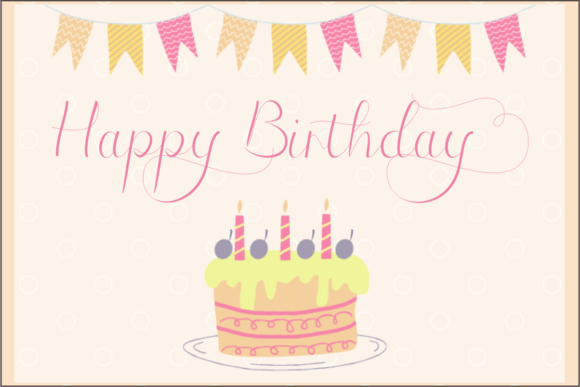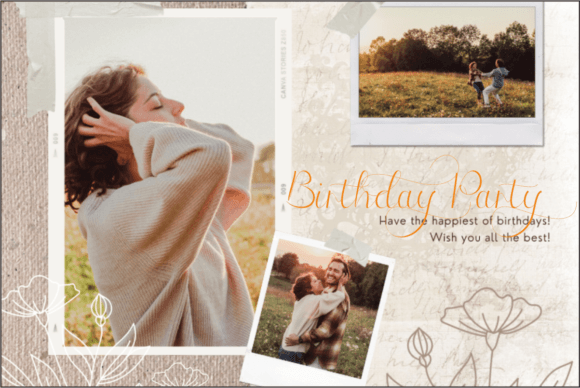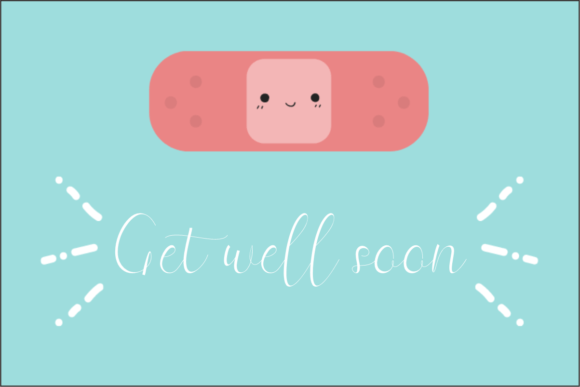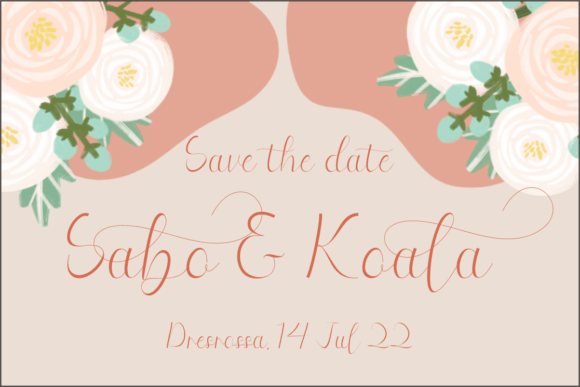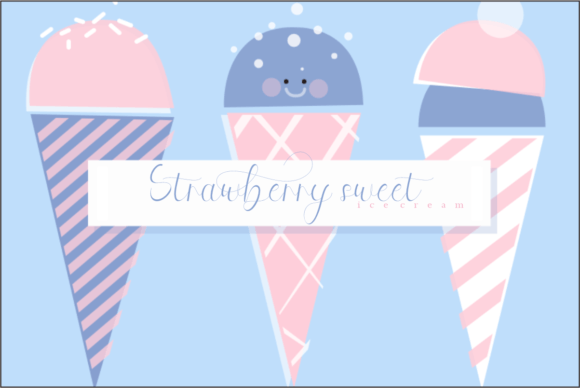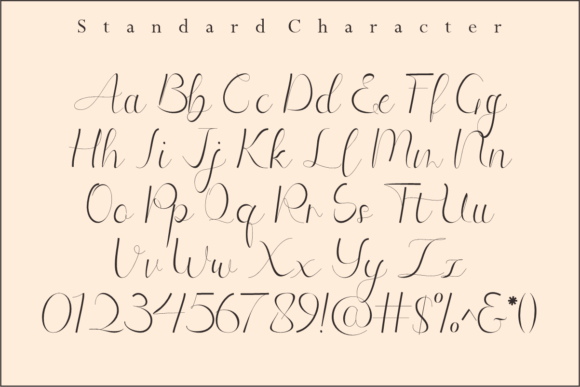
Discover the Elegance of Going Merry Font: Elevate Your Designs with a Timeless Style
Are you on the lookout for a font that adds a touch of elegance and sophistication to your projects? Look no further than the Going Merry Font. This beautiful, flowing handwritten font is designed to bring a sense of refinement and style to your designs, making it perfect for crafters and designers alike. With its unique and timeless style, Going Merry Font is sure to capture your heart and inspire your creativity.
The Characteristics of Going Merry Font
Going Merry Font is described as a flowing handwritten font with an elegant touch. Its fluid lines and curves give it a dynamic and organic feel, making it perfect for projects that require a personal and human touch. The font’s elegant style ensures that it can be used for a wide range of applications, from formal to informal, without ever looking out of place.
What Makes Going Merry Font Stand Out?
So, what sets Going Merry Font apart from other fonts? Here are a few key features that make it a standout choice for designers and crafters:
- Unique Style: Going Merry Font boasts a totally different and timeless style that will set your designs apart from the rest. Its distinctive look ensures that your projects will have a unique and recognizable aesthetic.
- Elegant Touch: The font’s elegant touch makes it perfect for projects that require a level of sophistication and refinement. Whether you’re working on a luxury brand campaign or a high-end craft project, Going Merry Font is sure to deliver.
- Versatility: Despite its elegant style, Going Merry Font is incredibly versatile and can be used for a wide range of applications, from digital designs to print materials.
How to Use Going Merry Font in Your Designs
Going Merry Font is perfect for a variety of design projects, including:
- Branding and Packaging: Use Going Merry Font to add a touch of elegance and sophistication to your brand’s packaging and marketing materials.
- Digital Designs: The font’s flowing style makes it perfect for digital designs, such as website headers, social media graphics, and email marketing campaigns.
- Crafting and Scrapbooking: Going Merry Font is also perfect for crafters and scrapbookers who want to add a personal touch to their projects.
Tips for Getting the Most Out of Going Merry Font
To get the most out of Going Merry Font, here are a few tips to keep in mind:
- Experiment with Different Sizes: Going Merry Font looks great in a variety of sizes, so don’t be afraid to experiment to find the perfect size for your project.
- Pair it with Other Fonts: Going Merry Font pairs well with a variety of other fonts, so try combining it with different fonts to create a unique and interesting look.
- Use it to Create Contrast: Use Going Merry Font to create contrast in your designs by pairing it with simpler or bolder fonts.
| Font Name | Going Merry Font |
| Author | RAP Studio |
Going Merry Font is a beautiful and elegant handwritten font that’s perfect for designers and crafters who want to add a touch of sophistication and style to their projects. With its unique and timeless style, versatility, and flowing lines, Going Merry Font is sure to become a favorite in your font collection. So why wait? Fall in love with Going Merry Font and start creating spectacular designs today!